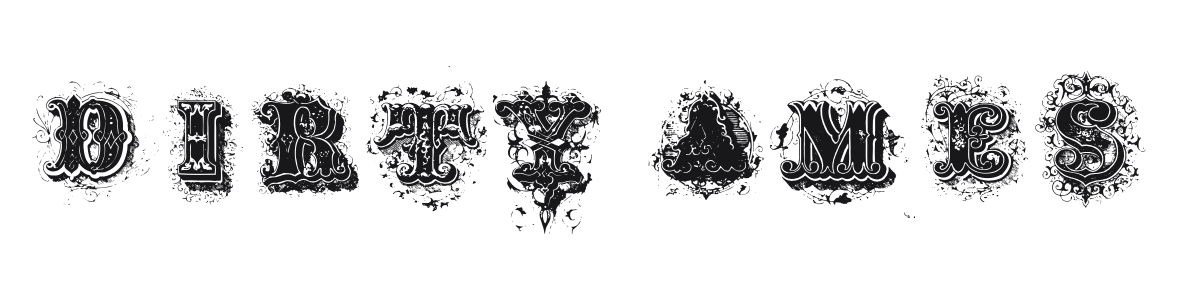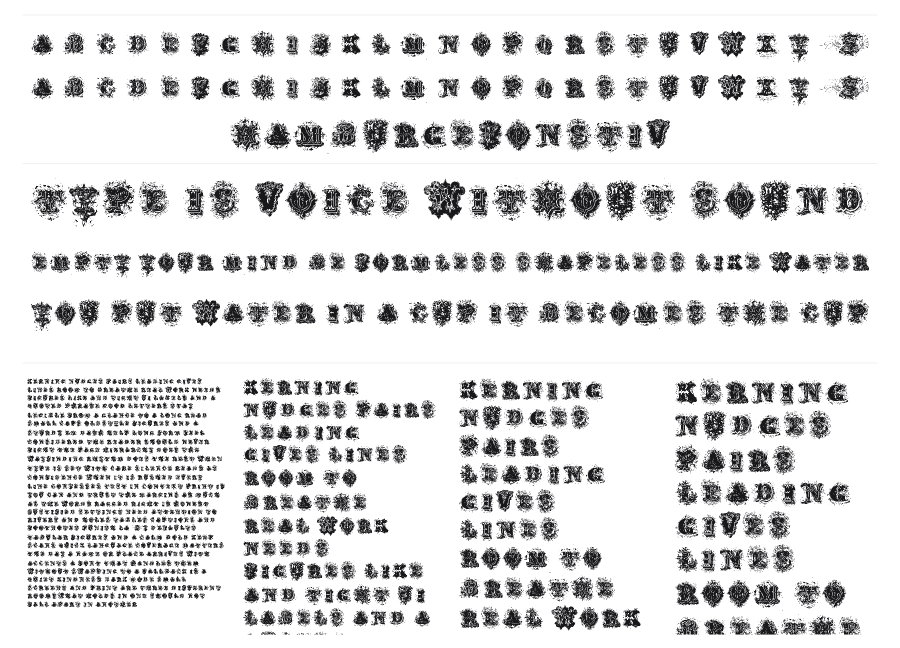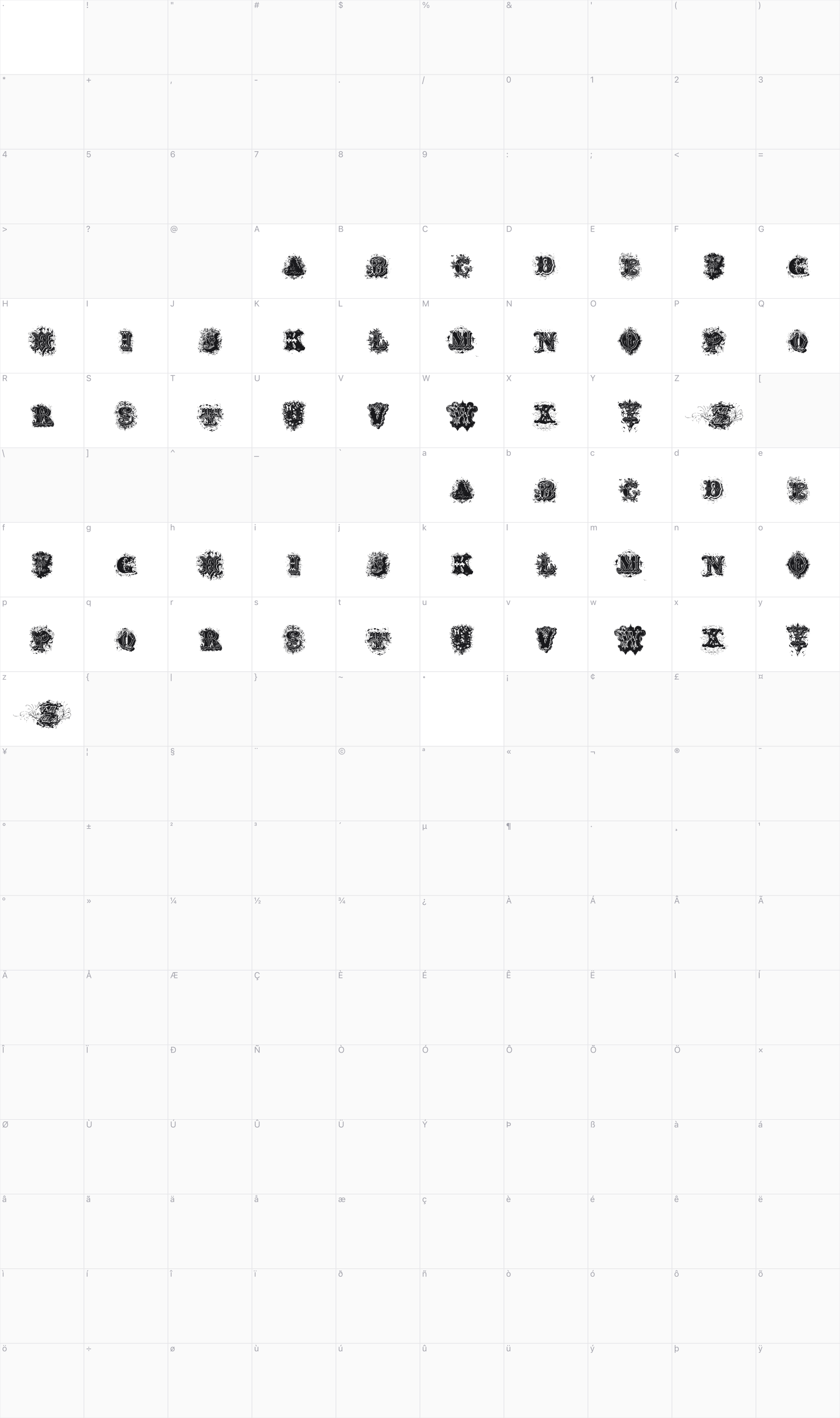
Dirty Ames
Dirty Ames is a heavily distressed revival of an 1884 ornamental initial typeface by D.T. Ames, reinterpreted with gritty ink-spread texture and aged letterpress character. Each letter is encased in dense Victorian floral ornament and rendered with inline serifs and extreme contrast. It brings the grandeur of 19th-century decorative printing to contemporary design work.